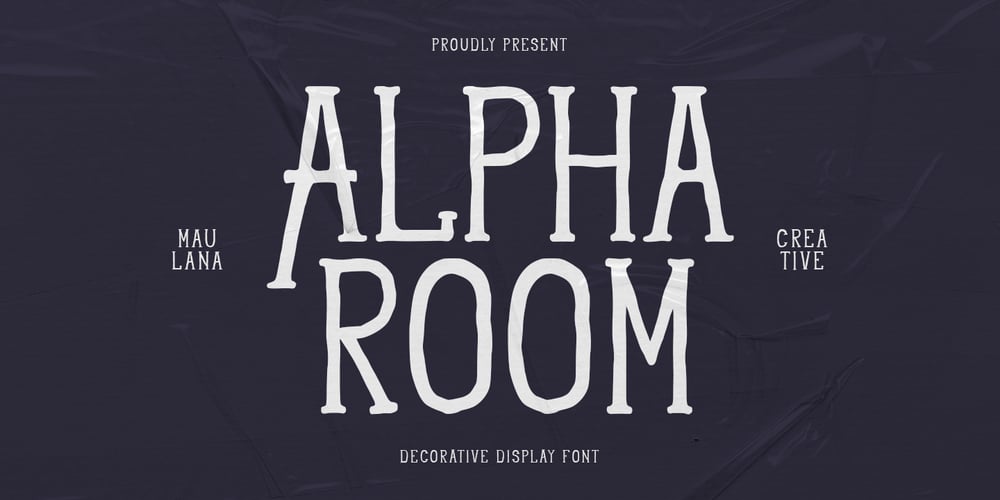
MC Alpha Room Font Family was designed by Gilang Maulana and published by Maulana Creative. MC Alpha Room contains 1 styles and family package options. Alpha Room decorative display font. Bold stroke, fun character with a bit of ligatures and alternates. To give you an extra creative work. Alpha Room decorative display font support multilingual more than 100+ language. This font is good for logo design, Social media, Movie Titles, Books Titles, a short text even a long text letter and good for your secondary text font with script or serif. Make a stunning work with Alpha Room decorative display font.Cheers,Maulana Creative